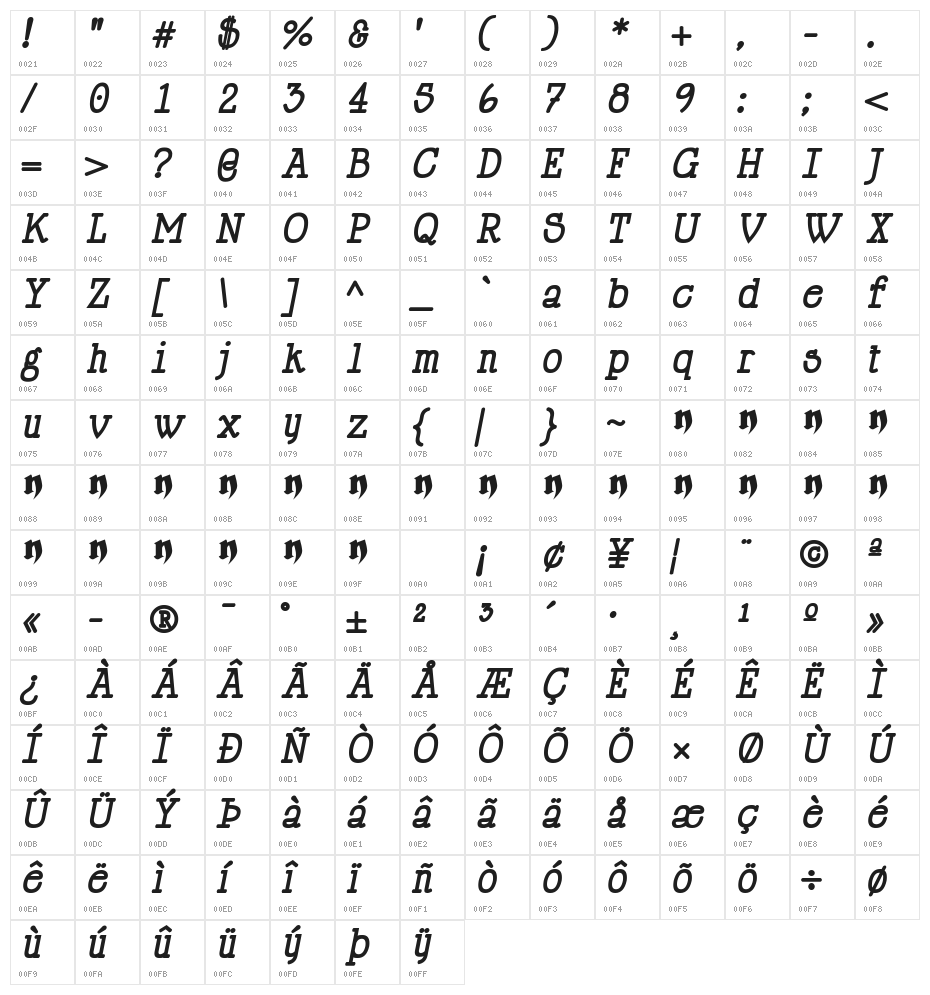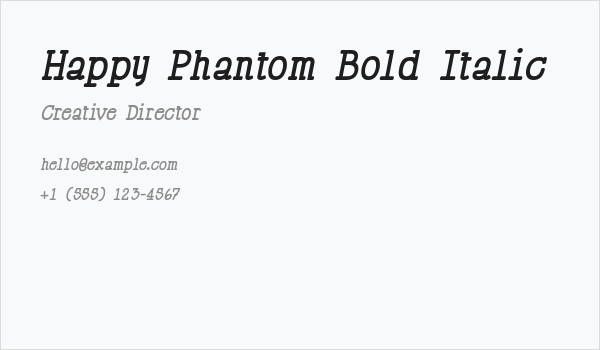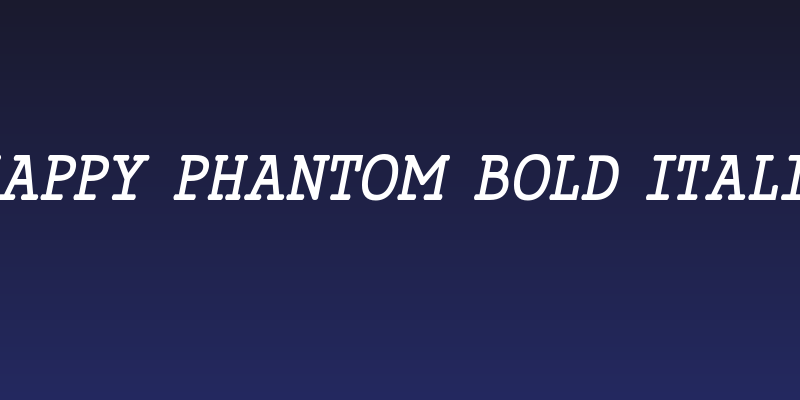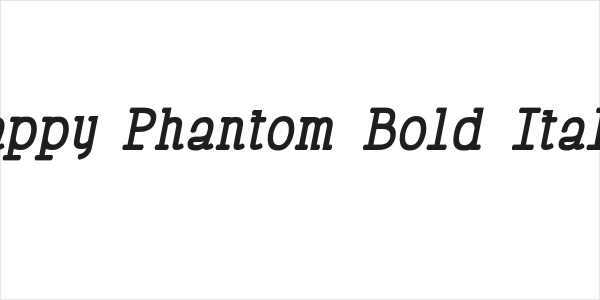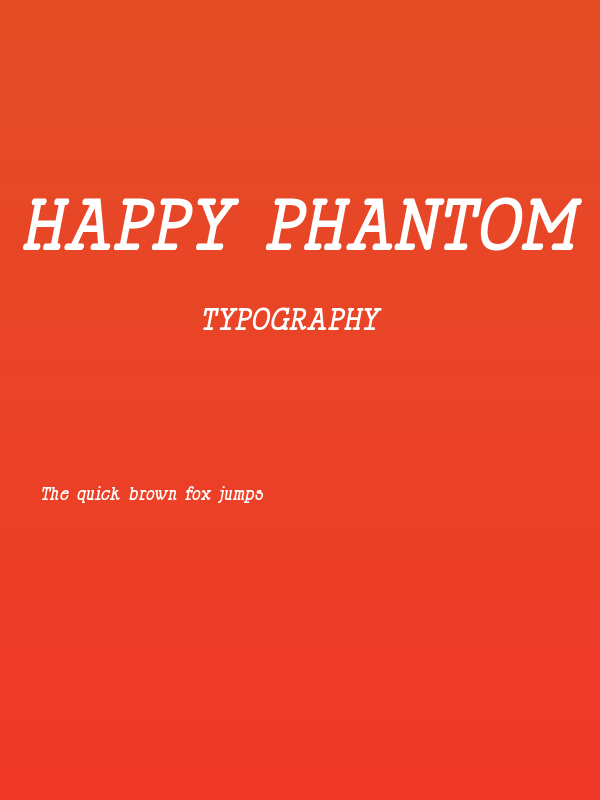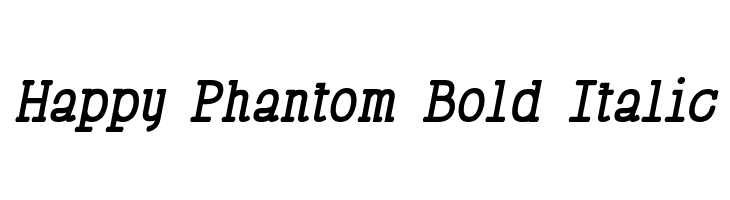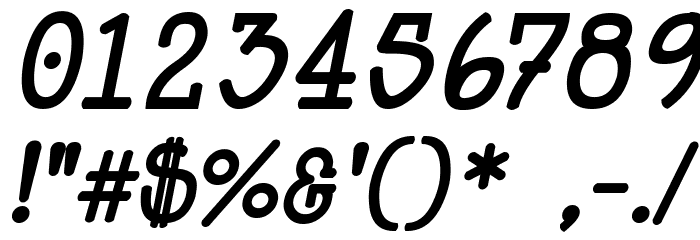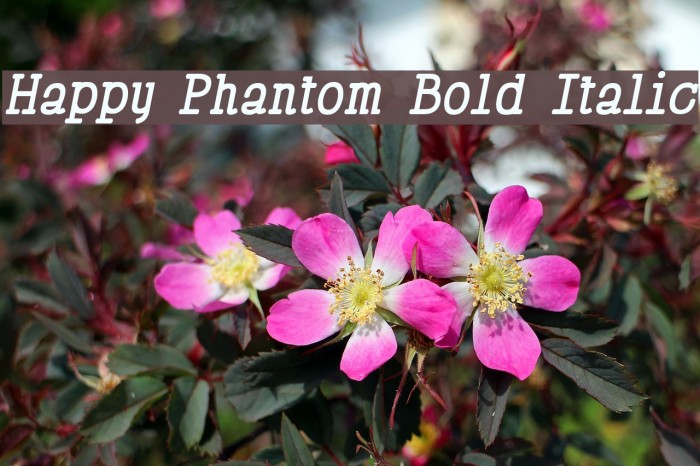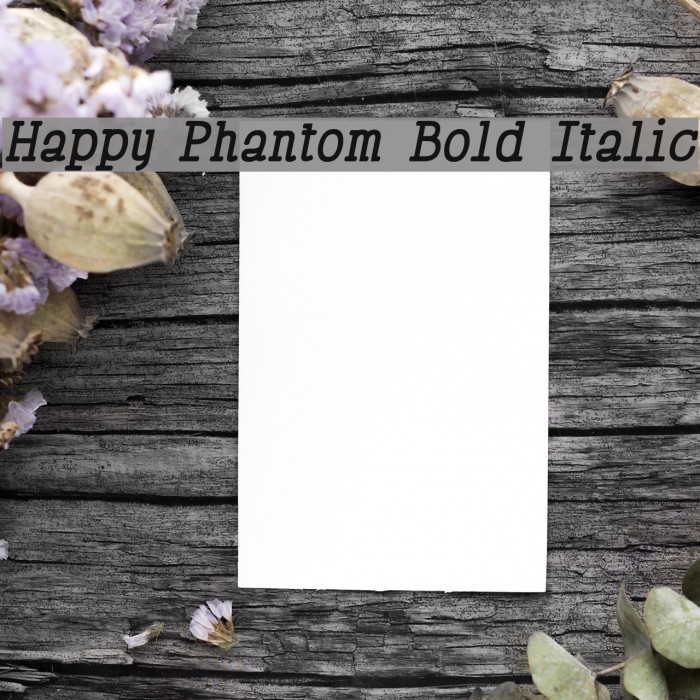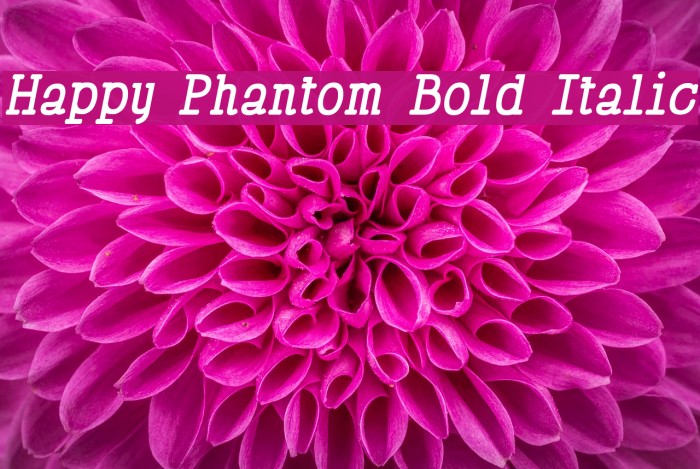
Happy Phantom Bold Italic Font
Happy Phantom Bold Italic Description
This font features a bold and italicized style, combining a sense of strength with dynamic movement. The characters have a slightly slanted orientation, giving them a forward-leaning appearance that suggests motion and energy. The strokes are thick and consistent, providing a robust and confident look. The serifs are pronounced yet smoothly integrated, adding a touch of elegance to the overall design. This font maintains a balance between traditional serif elements and a modern, playful twist, making it versatile for various design applications.
| Proposed Projects | Ideal for branding, headlines, posters, and any design needing a bold, energetic serif typeface. |